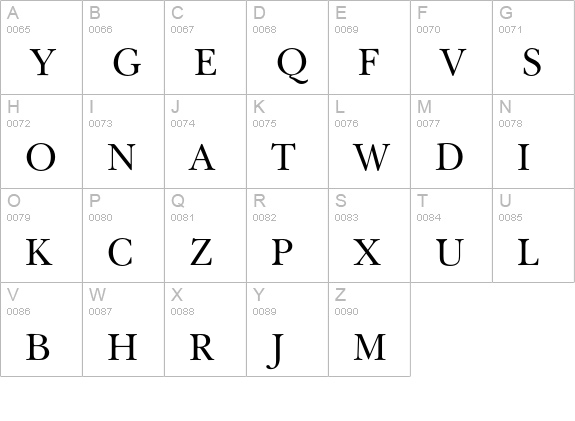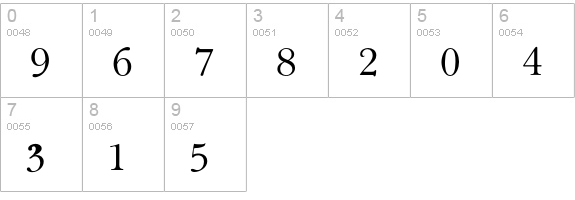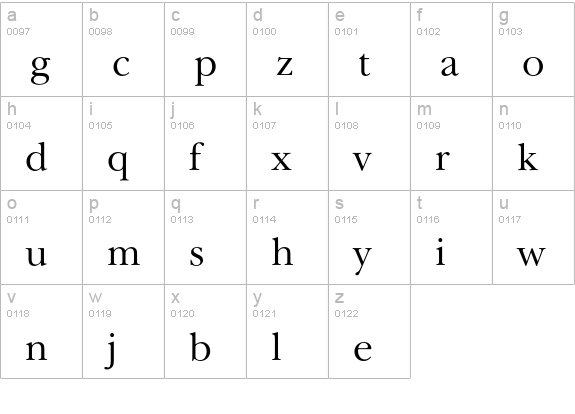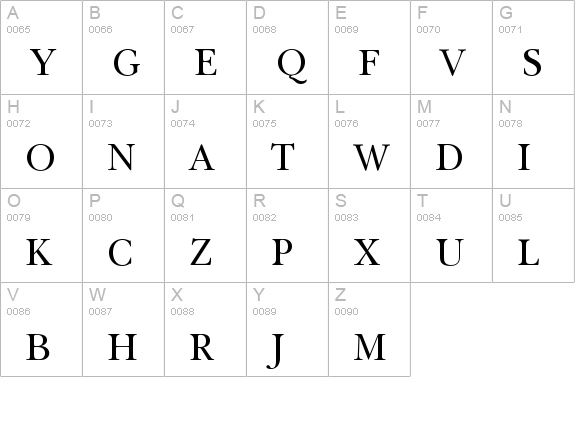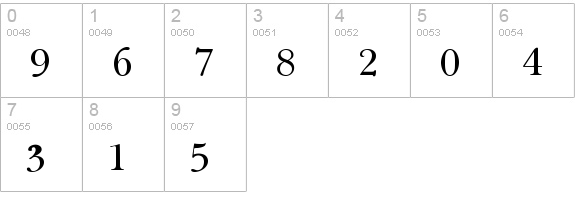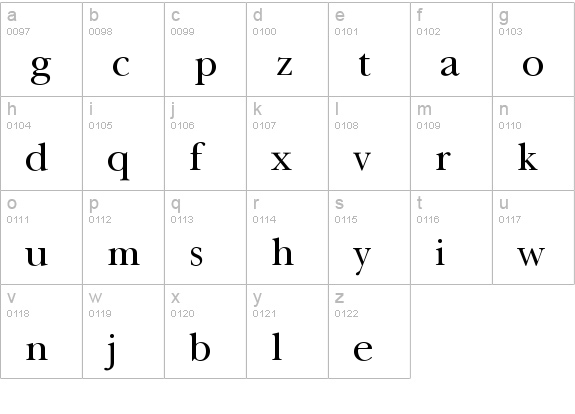
Religion-LossOfFaith font is a captivating typeface that embodies the essence of a profound and personal journey. With its intricate and thought-provoking design, this font encapsulates the complex emotions and struggles often associated with the loss of faith in organized religion. Every curve and line of Religion-LossOfFaith font tells a story of introspection, questioning, and ultimately, acceptance. Its bold and expressive characters capture the essence of the human spirit, inviting readers to delve into their own contemplative experiences. This font is not just a typographical masterpiece; it is a symbol of liberation and personal growth. As one gazes upon the letters, a sense of freedom washes over, encouraging individuals to embrace their own beliefs and navigate their spiritual paths with confidence and authenticity. The Religion-LossOfFaith font is not only visually striking, but it is also highly versatile. Whether used for graphic design projects, editorial layouts, or personal creations, it effortlessly adds a touch of sophistication and depth to any composition. Best of all, Religion-LossOfFaith font is freely available to download at FontsMarket.com. This means that designers, writers, and creatives of all kinds can access this remarkable font without any financial barriers. The creators of Religion-LossOfFaith believe that art should be accessible to all, enabling everyone to express their innermost thoughts and emotions through typography. So, if you're searching for a font that transcends the boundaries of conventional design and embraces the complexities of the human experience, look no further than Religion-LossOfFaith. Download it today at FontsMarket.com and embark on a visual journey that will inspire and provoke thought in equal measure.